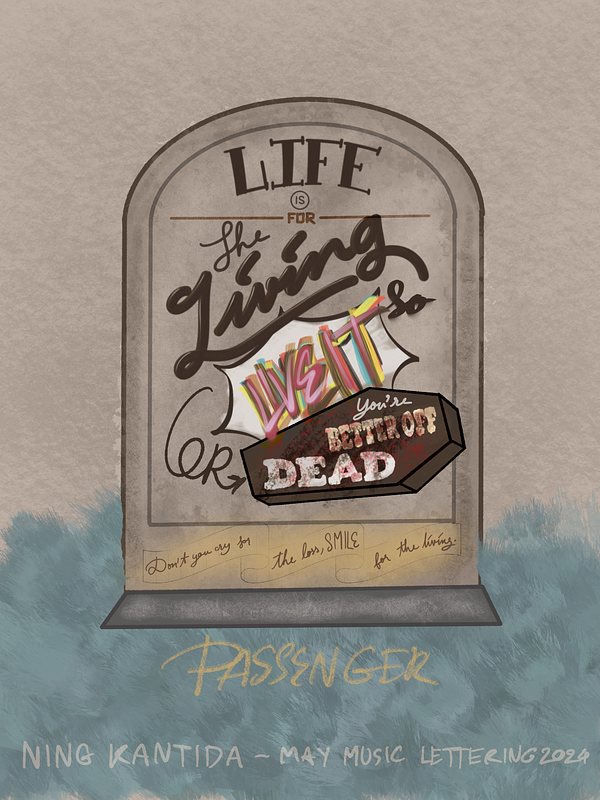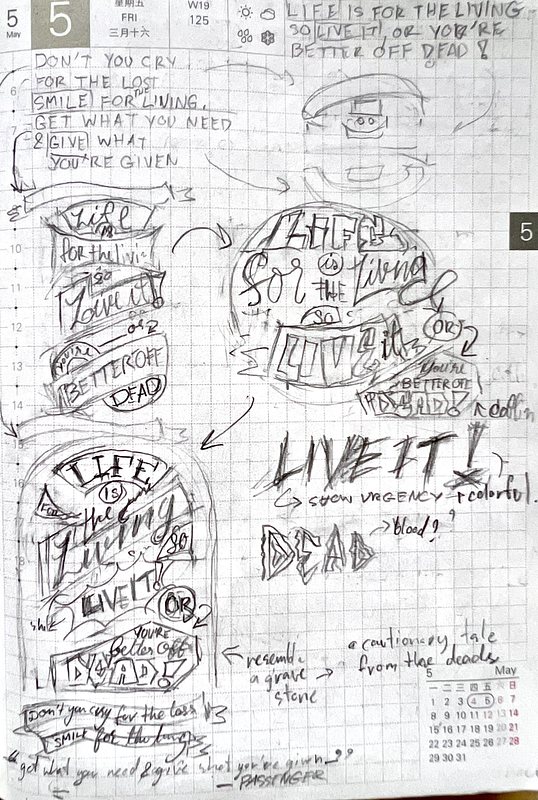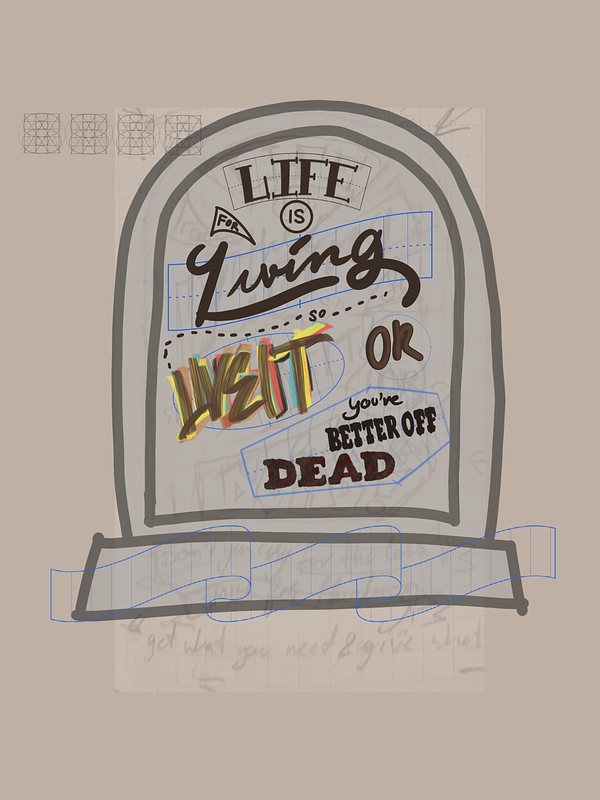
The Lyrics Lettering 00005-Life's For The Living by Passenger
The Work
My Lettering Design for Life's For The Living by Passenger
My Lettering Design for Life's For The Living by Passenger.
The Inspiration
In my opinion, Passenger is a lyrical genius because of his poetic ways of portraying life's ups and downs. And his album, All The Little Lights, is one of my favorite albums of all time. One particular song that has left a lasting impression on me is "Life’s for The Living."
It is a gentle nudge to shift our focus from dwelling on the past or worrying about the future, and instead embrace the here and now. Life is indeed for the living, and it is up to us to make the most of it.
"...Don't you cry for the lost, smile for the living.
Get what you need, and give what you're given.
Life is for the living, so live it,
or you're better off dead..."
The Process
I started with a traditional layout but then decided to switch things up. I wanted to convey the message of "you're better off dead" by using a coffin, with a circle shape as a circle of life. However, I ultimately replaced a circle with a gravestone to represent the regret of giving up on life early and not living your life to the fullest while you still can.
The gravestone serves as a warning from those who have passed on, urging us to appreciate our time on earth and not waste it in regret. I imagined that these lyrics would be something they would say to the living.
Unfortunately, this concept proved challenging to translate into a lettering design, requiring more skill and precision than I currently possess. I struggled with getting the letters to look engraved and making the gravestone look realistic in my artwork.
Despite struggling with painting techniques and composition, I enjoyed the process and learned a lot from it.
I may not have achieved the design I envisioned, but I'm happy with what I've created. It's all part of the learning experience, and I’m okay with that. This is my current best effort, and I accept it as a stepping stone for future growth.
In the future, I hope to improve my skills and revisit this project to do justice to the profound message of the lyrics.